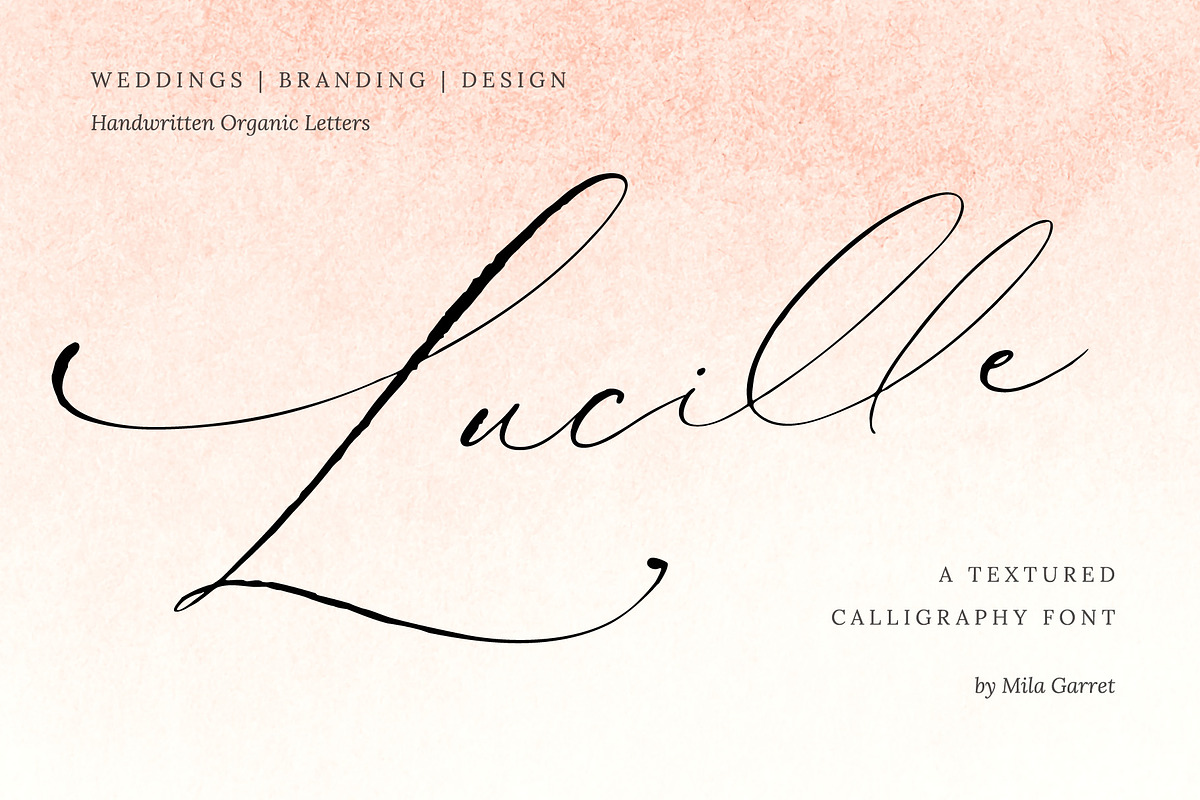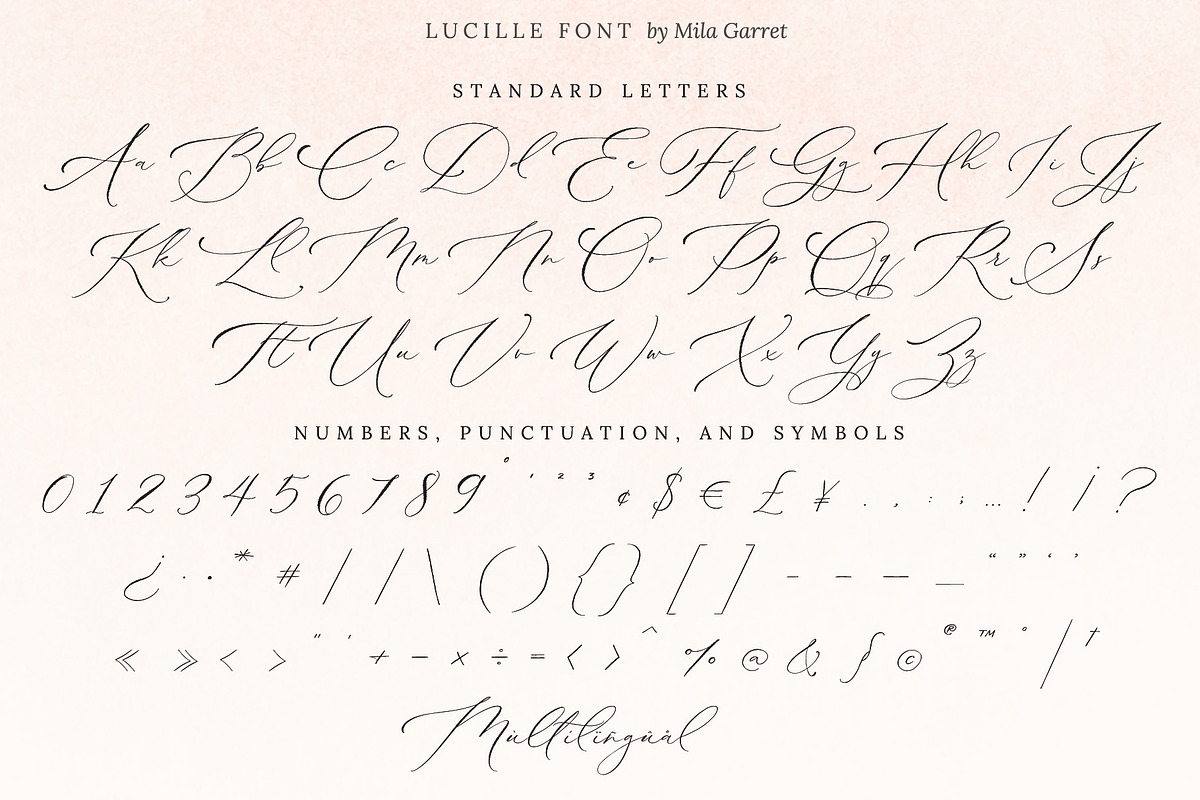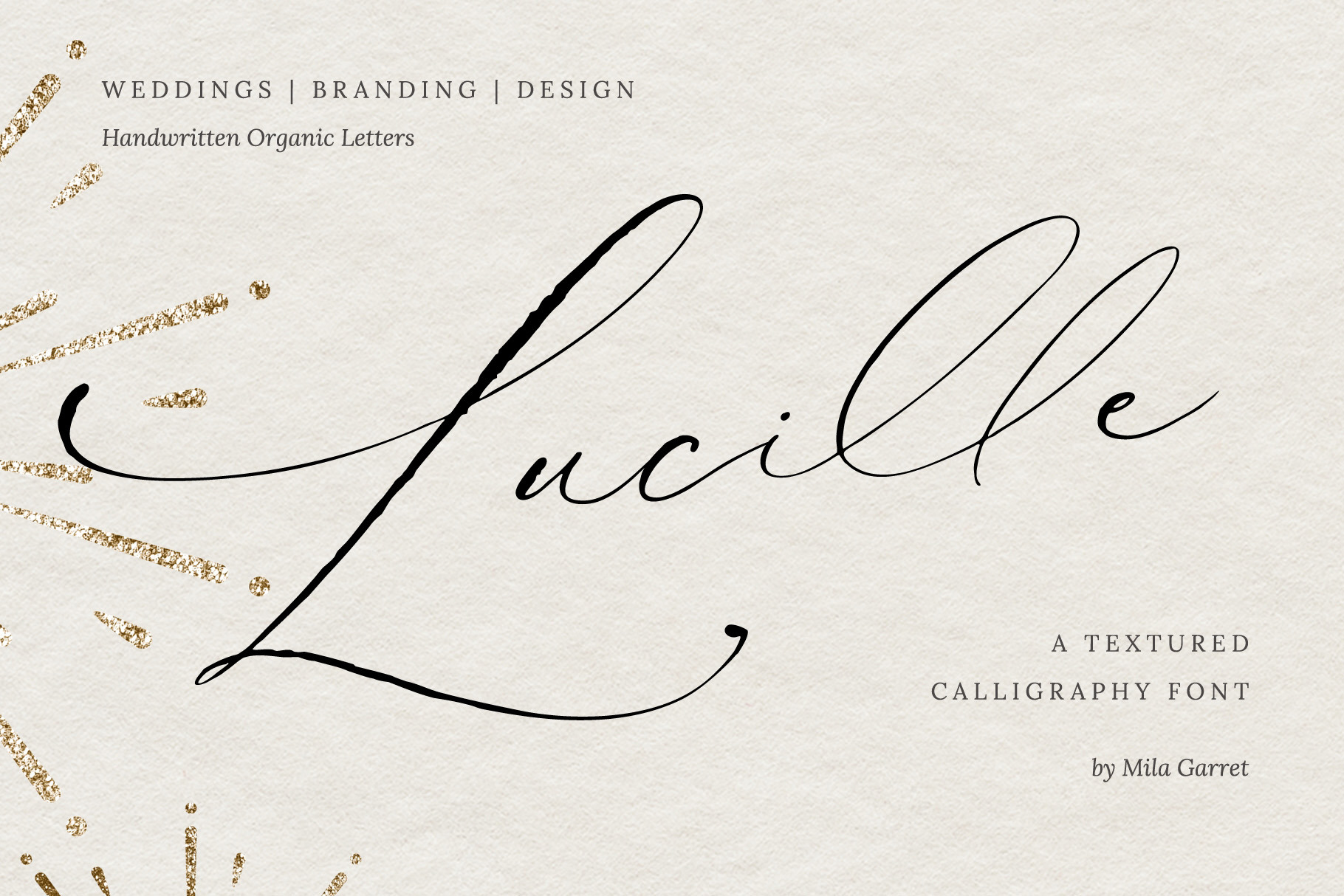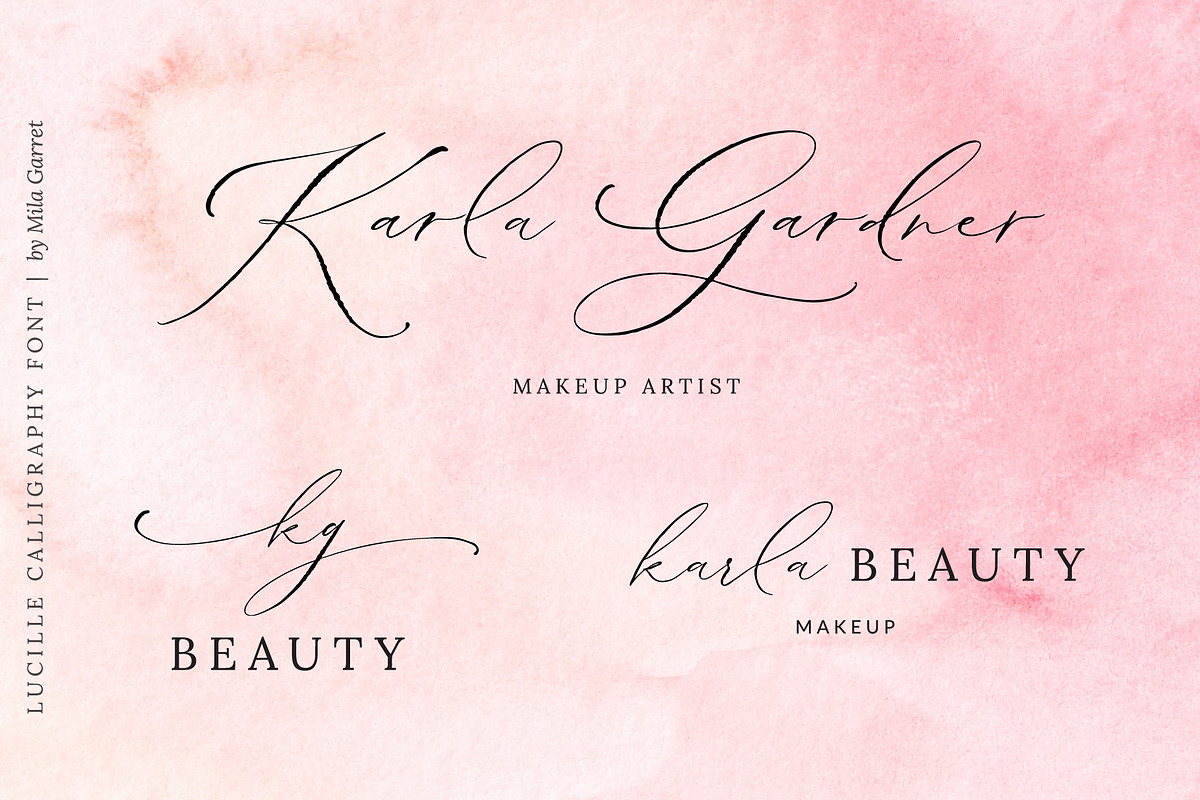
Lucille Wedding Calligraphy Font
Introducing Lucille, a modern calligraphy font, handwritten with an inky texture, featuring swash alternates and ligatures. Lucille Script is suited for feminine logos, wedding stationery, small business branding, and more!
Lucille Font Features
- Full Set of standard alphabet and punctuation
- Extra set of beginning swashed lowercase
- Extra set of ending swashed lowercase
- Extra set of beginning swashed uppercase
- Handwritten ligatures
- Multilingual Characters (ÁÂÄÀÅÃÆÇÐÉÊËÈÍÎÏÌÑÓÔÖÒØÕŒÞÚÛÜÙẂŴẄẀÝŶŸỲ áâäàåãæçðéêëèíîïìñóôöòøõœþßúûüùẃŵẅẁýŷÿỳŠŽšž€£¥ªº)
- Inky Rough Texture